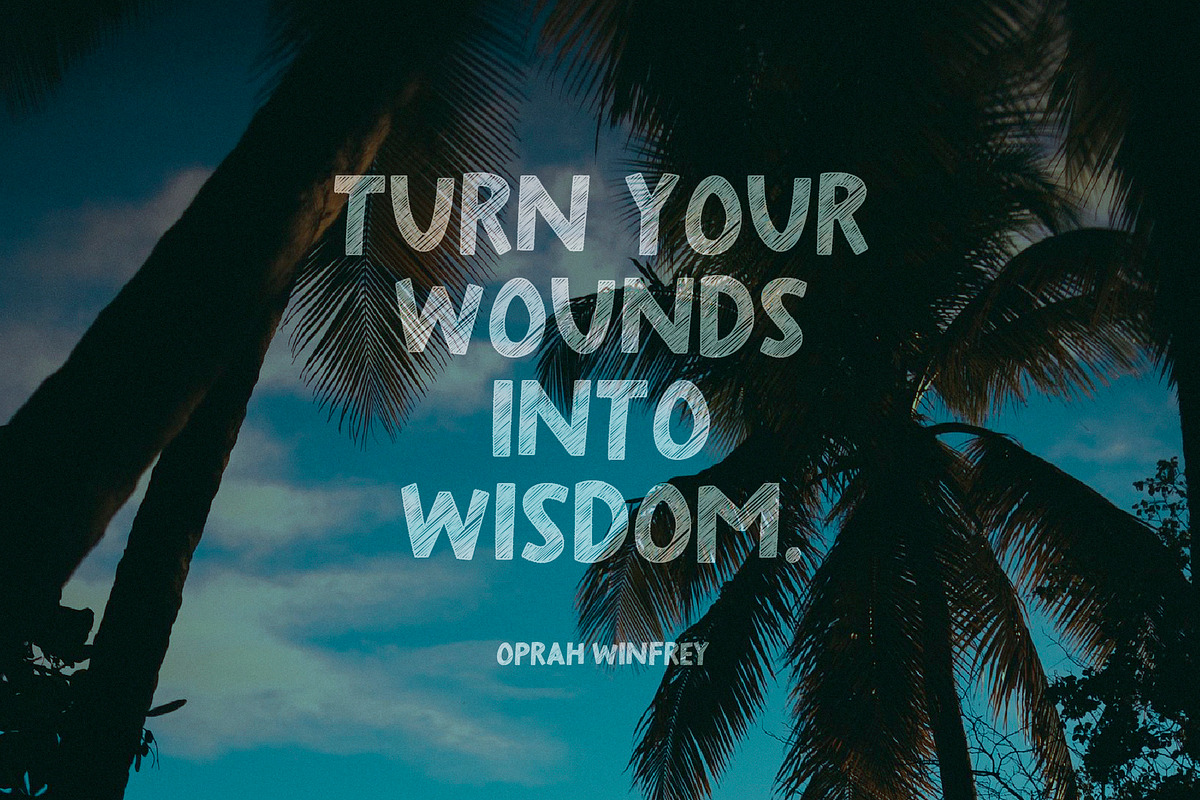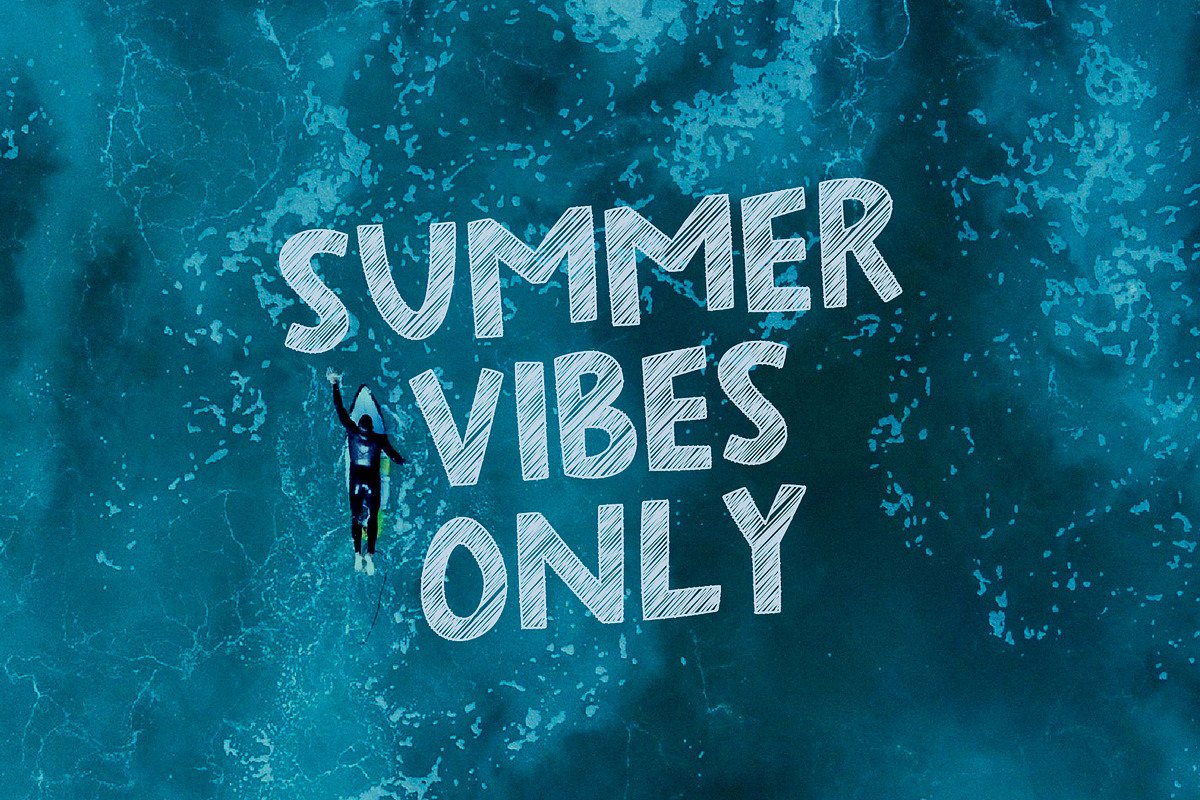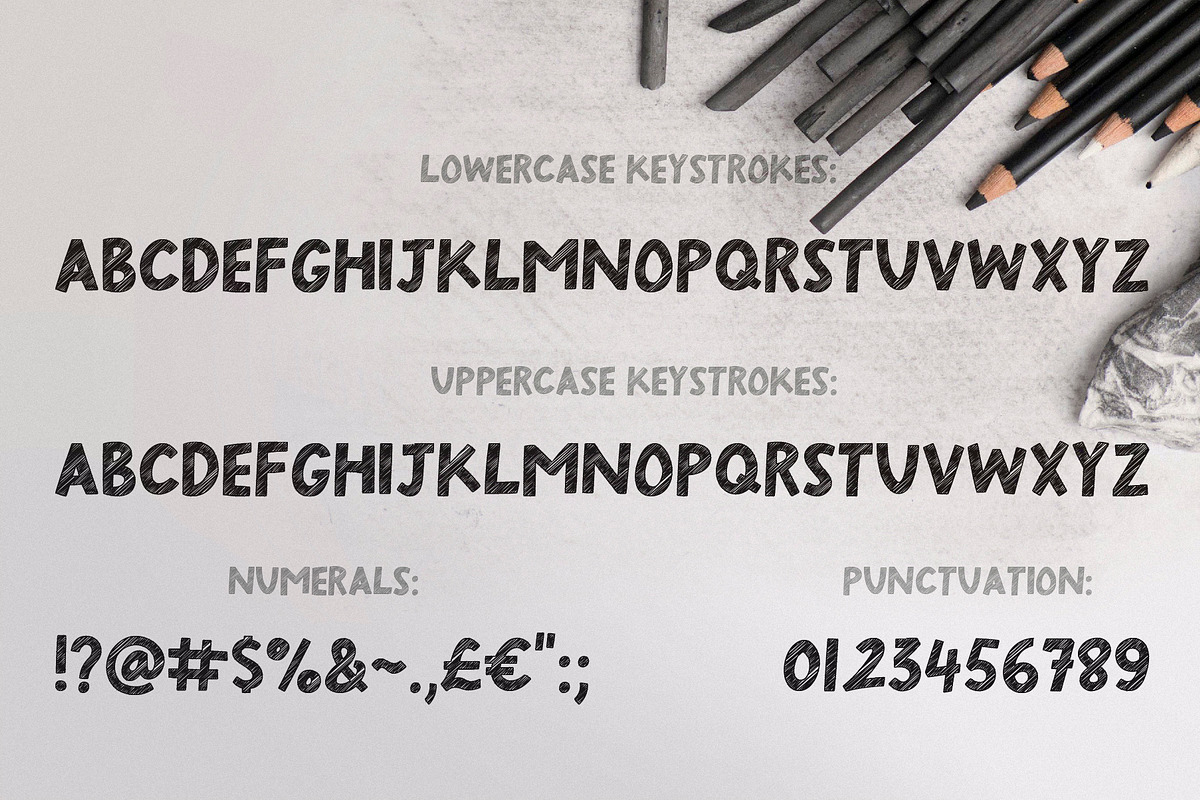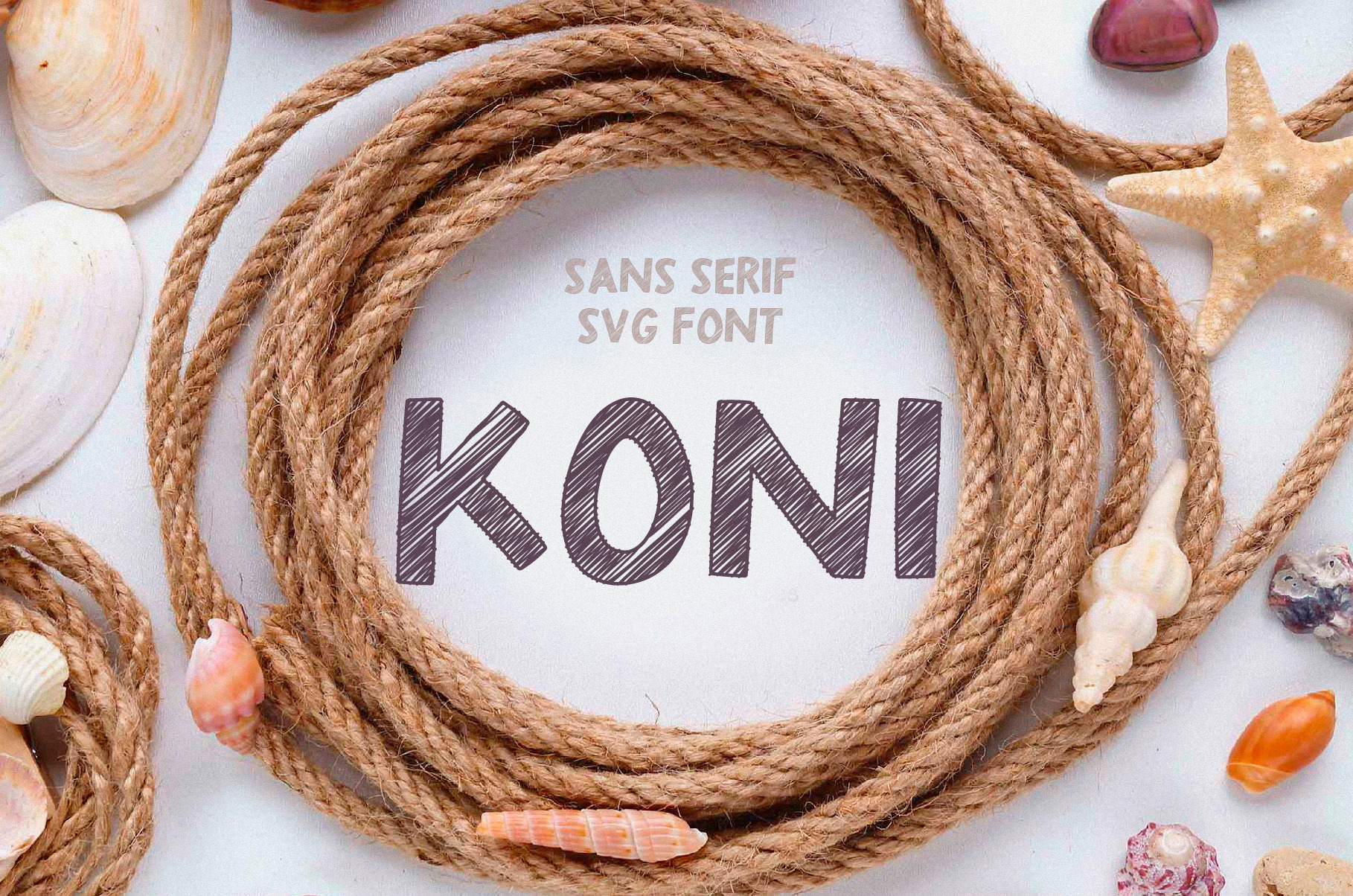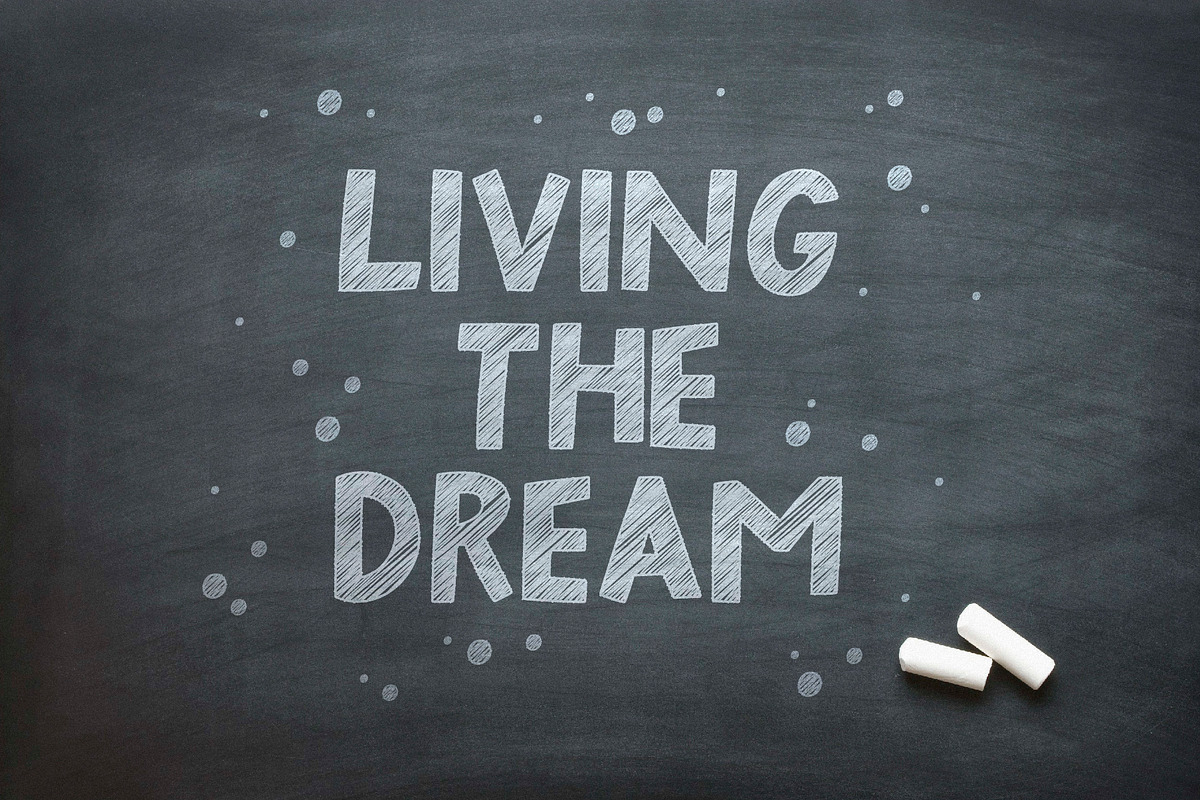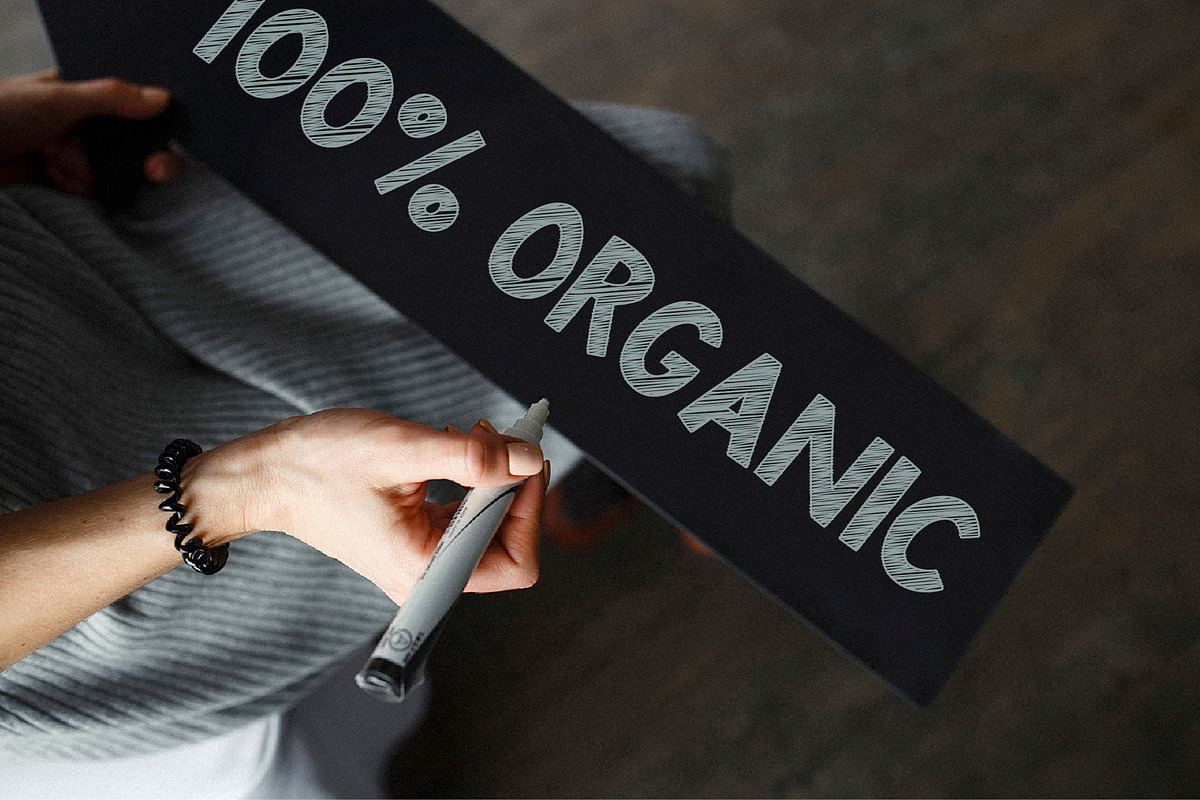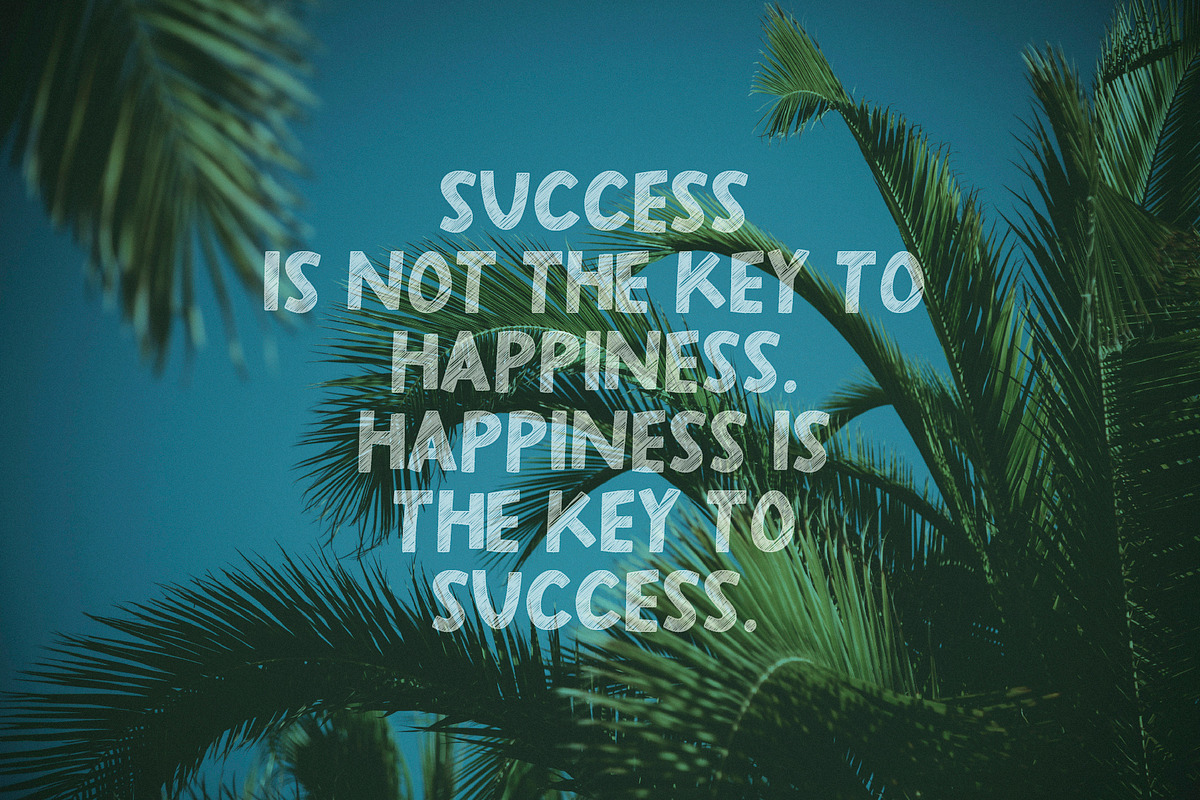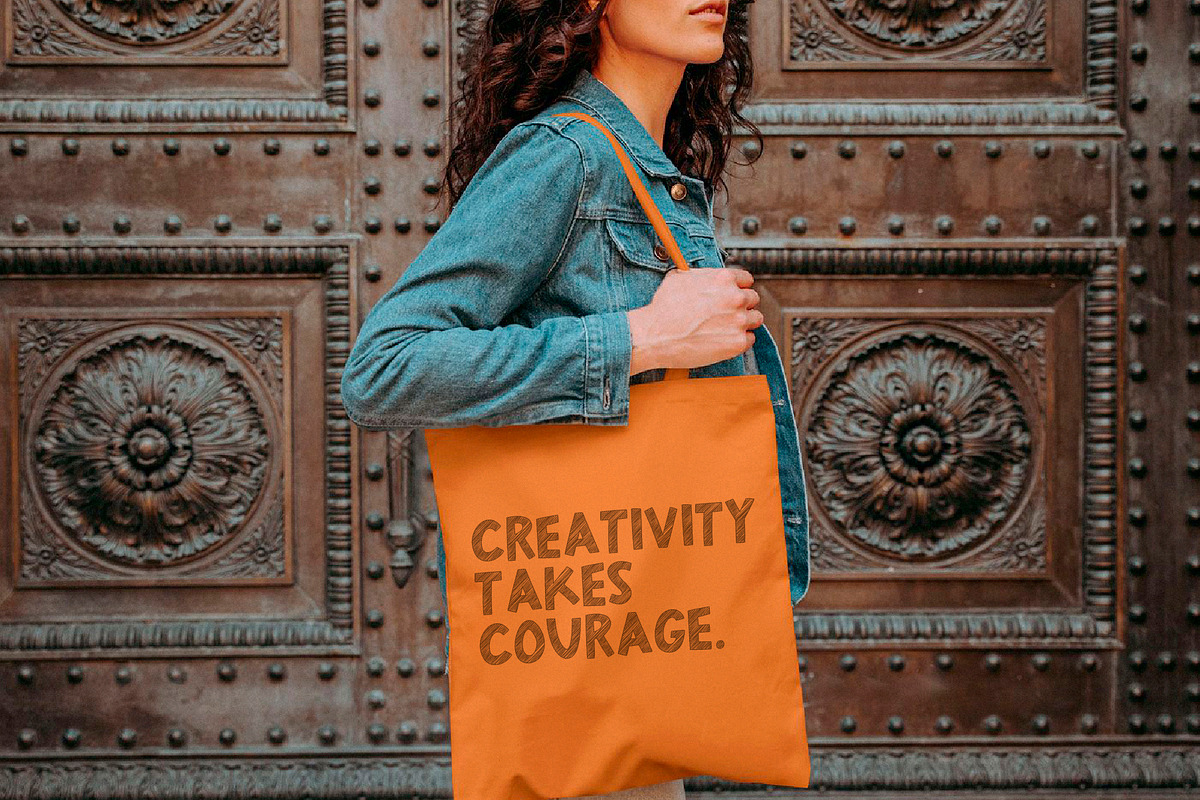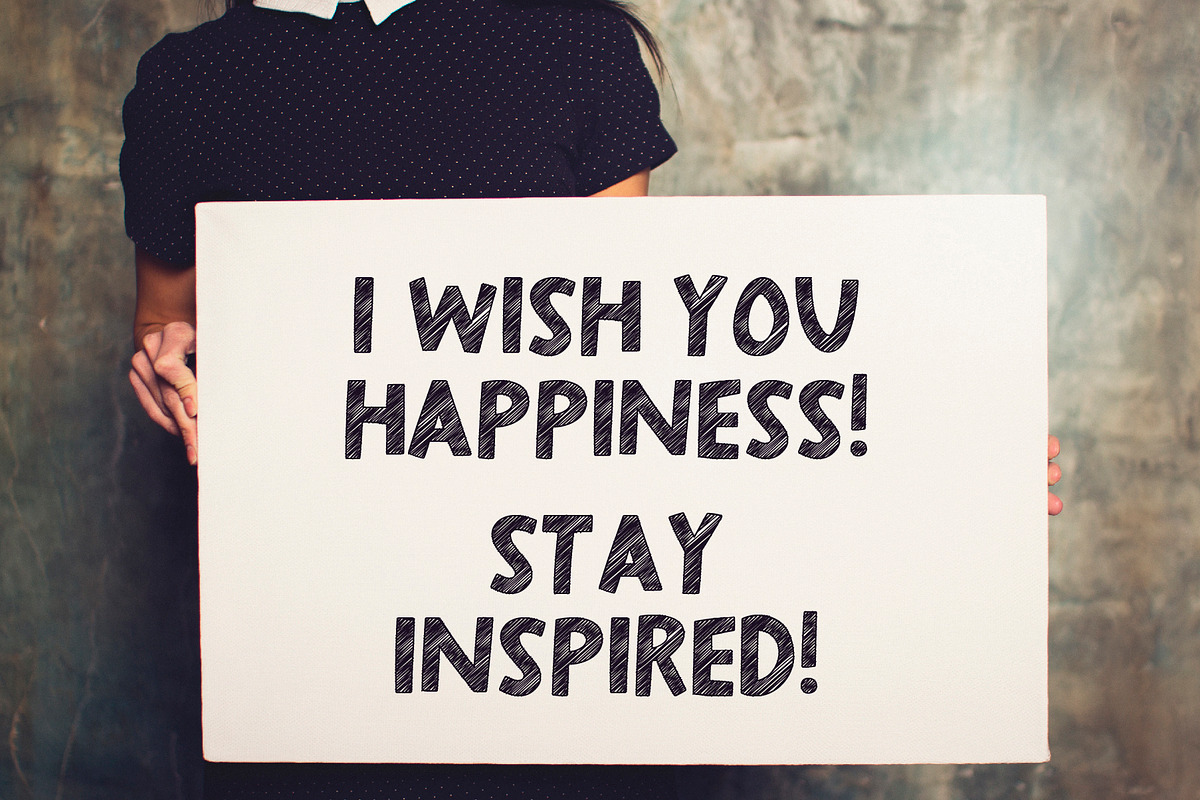
Sans serif SVG font Koni
Get to know the beautiful natural and neat font "Koni"! This beautiful neat SVG retro sans-serif font with imperfect ink edges and a little careless shading is inspired by nature. This is a textured font in vintage style with capital letters. The letters here are clearly distinguishable, and interesting touches give it uniqueness. Eco-friendly fashion takes into account the health of consumers, the health of the planet. The font "Koni" is perfectly combined with any stylized graphics, watercolors, and also looks great on its own as part of a minimalist design. Play with letters to get different effects.